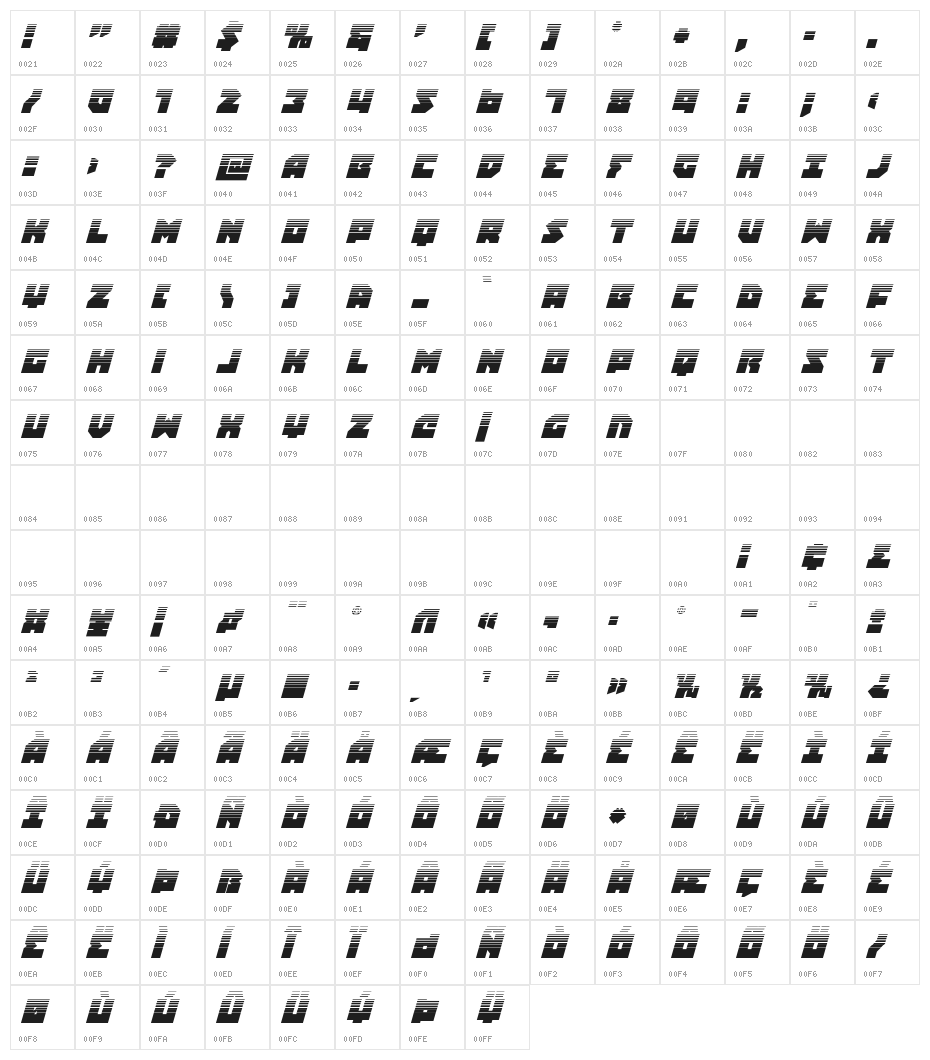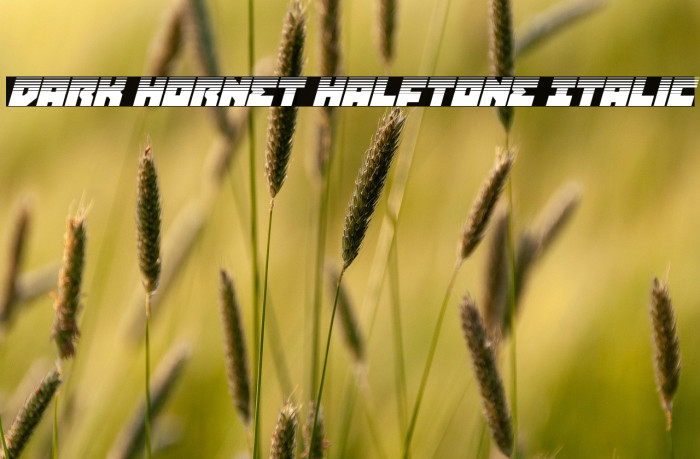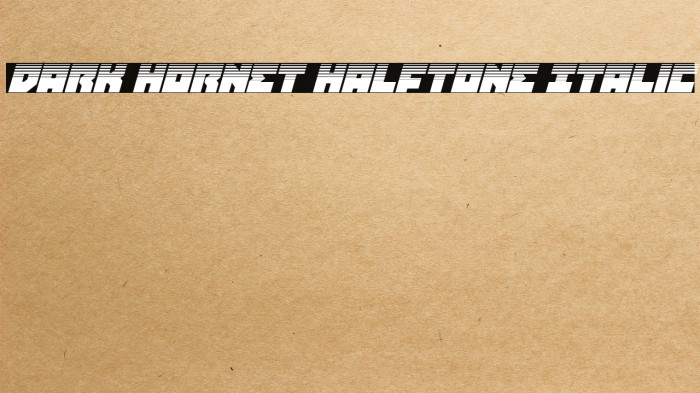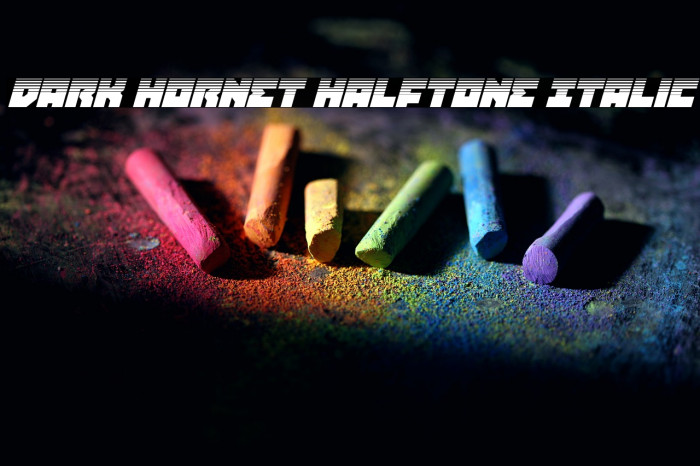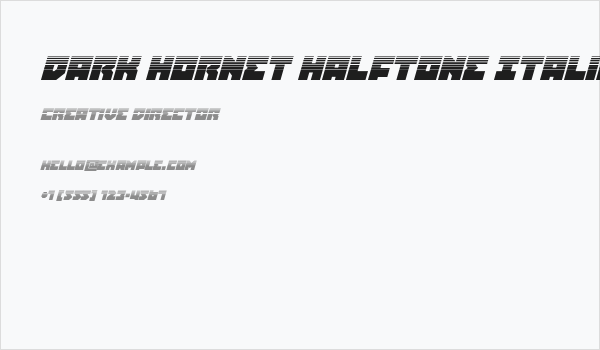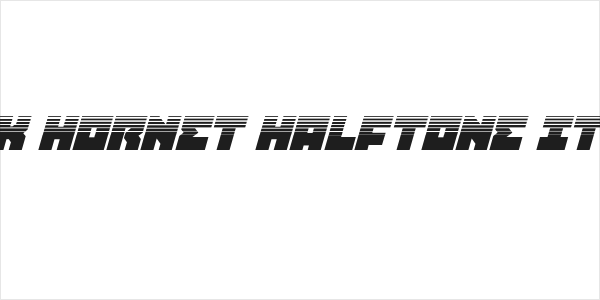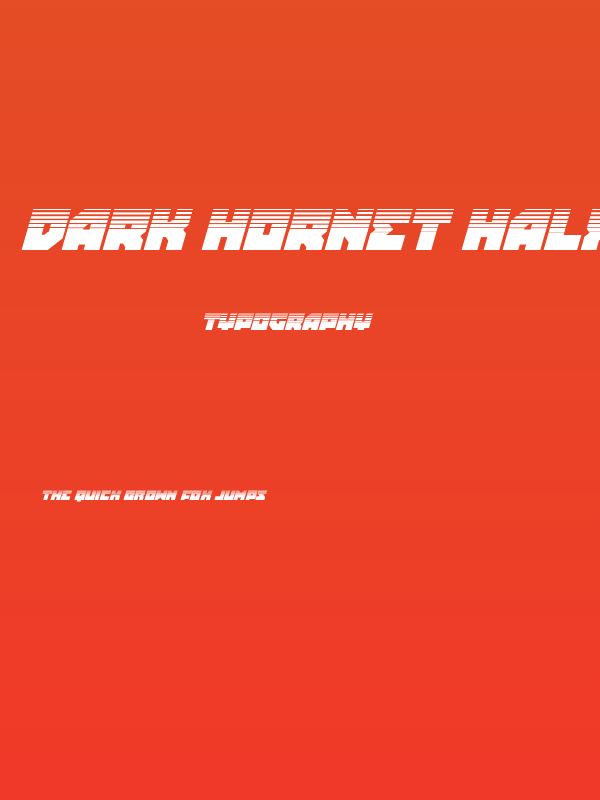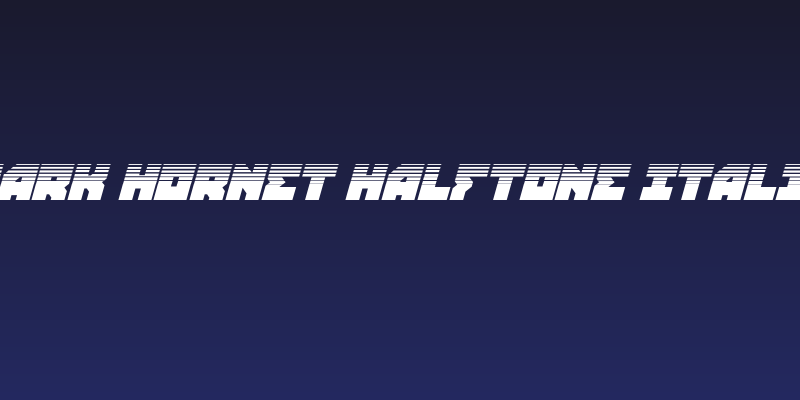
Dark Hornet Halftone Italic Font
Dark Hornet Halftone Italic Description
This font features a bold, futuristic design with a distinctive halftone effect that gives it a dynamic and energetic appearance. The characters are italicized, adding a sense of motion and speed. The uppercase and lowercase letters, as well as numbers and special characters, maintain a consistent style with sharp angles and geometric shapes. The horizontal lines across the top of each character create a layered effect, enhancing its modern and edgy look. This font is ideal for projects that require a strong visual impact and a contemporary aesthetic.
| Proposed Projects | Ideal for sci-fi themed designs, video game graphics, tech branding, and dynamic posters. |